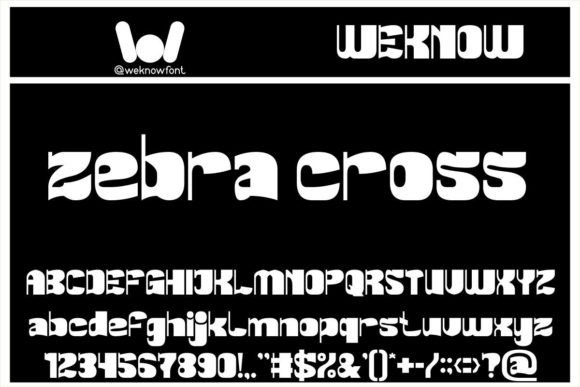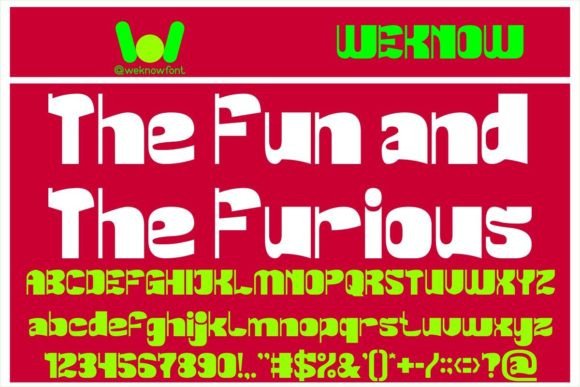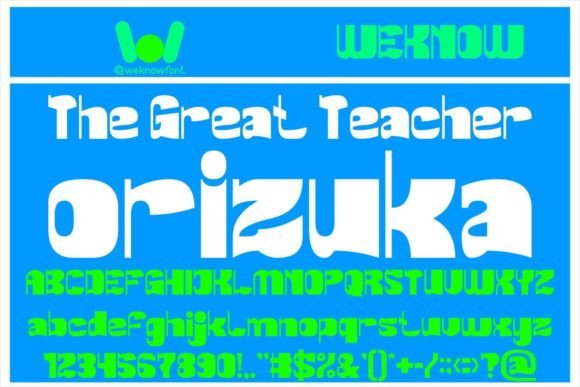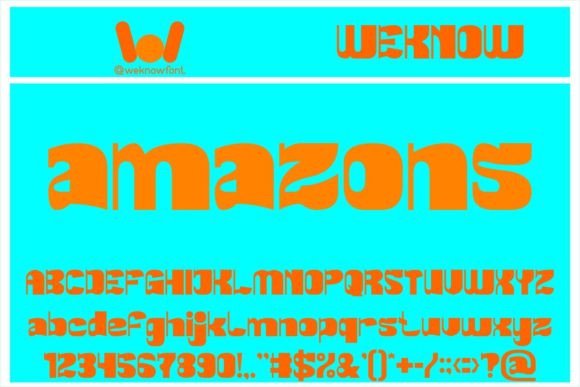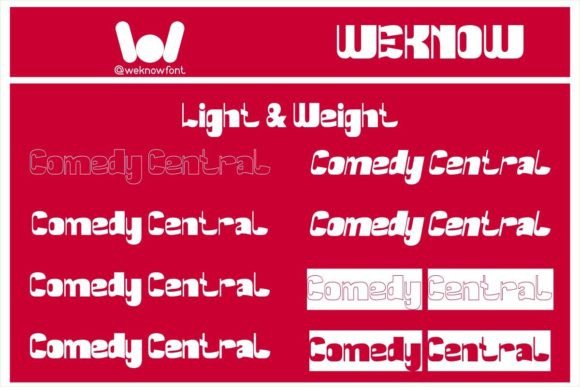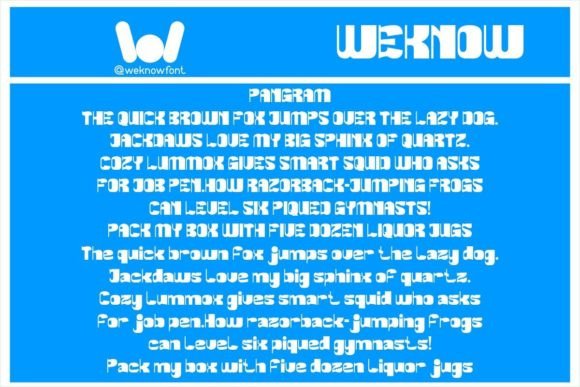
Introduction to Comedy Central Font
Introducing Comedy Central, a vibrant and playful display font that exudes whimsy and fun.
Perfect for introducing a touch of merriment and personality, this font is perfect for a wide variety of creative ventures From crafting distinctive logos and logotypes, shaping unique corporate and brand identities, to adding a spritz of quirkiness in the apparel industry, Comedy Central is your go-to font.
Key Features of Comedy Central Font
Why Choose Comedy Central Font?
Comedy Central Font offers exceptional quality and versatility, making it a valuable addition to your design toolkit. Whether you’re creating for personal projects or commercial use, Comedy Central Font delivers professional results.